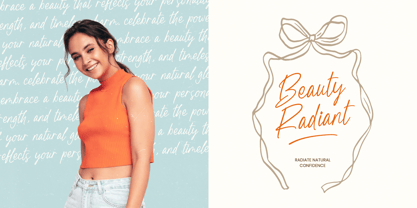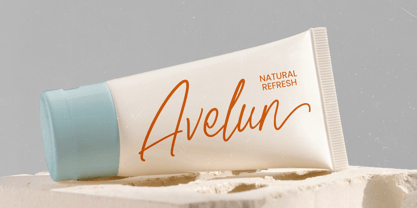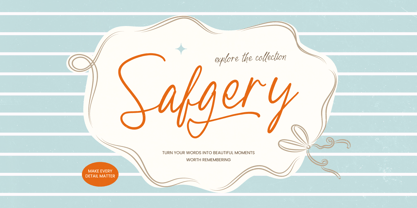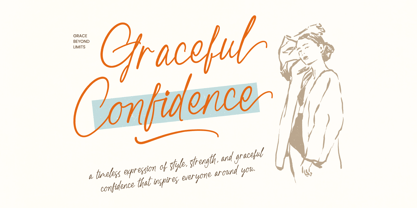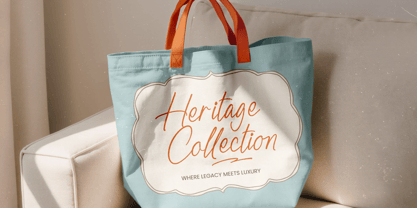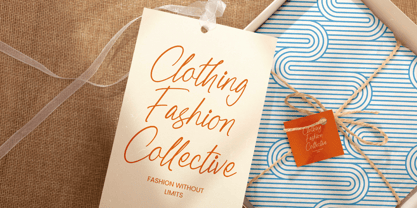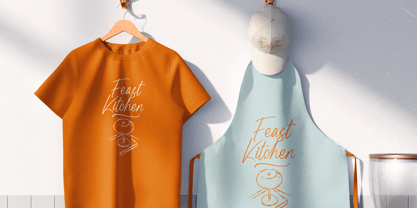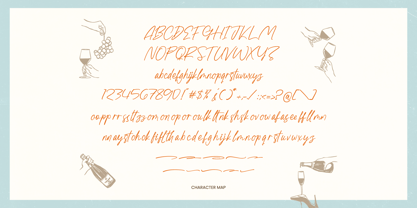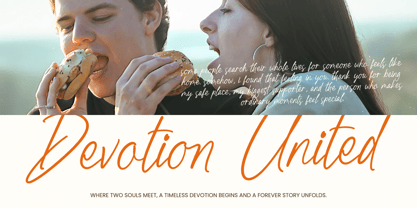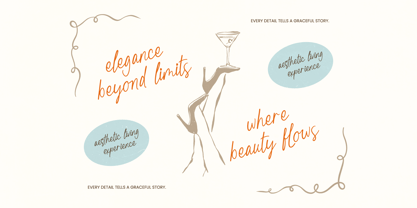
Safgery
Experience the effortless elegance and timeless charm of Safgery, a typeface designed to infuse your creative projects with a sense of personal touch and high-end sophistication. This exquisite handwritten script serves as a bridge between classic calligraphy and modern aesthetics, ensuring every word flows with a unique, artisanal rhythm.
Inspired by the fluid motions of a pen across fine parchment, Safgery captures the atmosphere of a sun-lit studio where every stroke is intentional yet free. The design reflects a lifestyle of graceful confidence, drawing visual cues from boutique lifestyle aesthetics and the organic textures of handcrafted luxury goods.